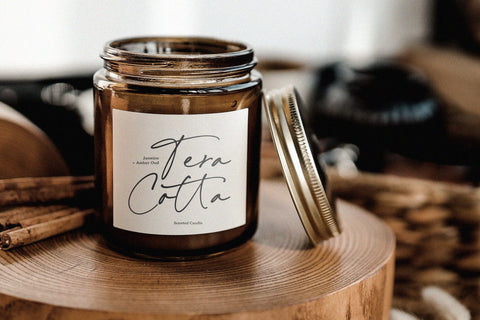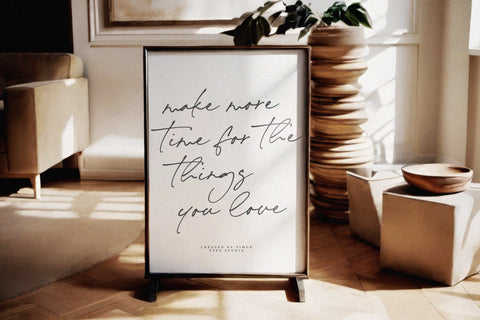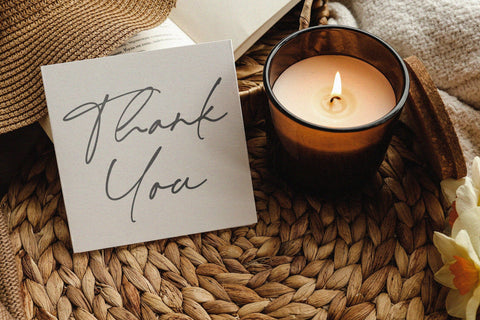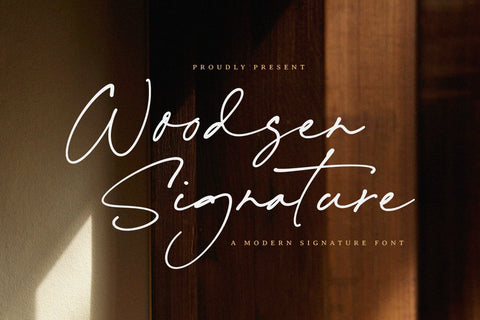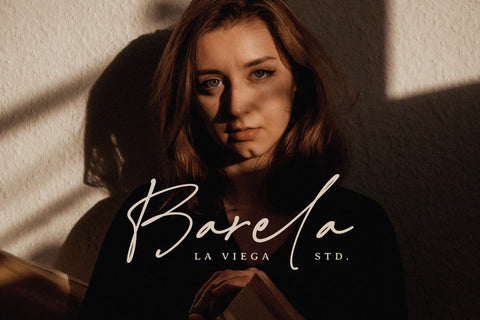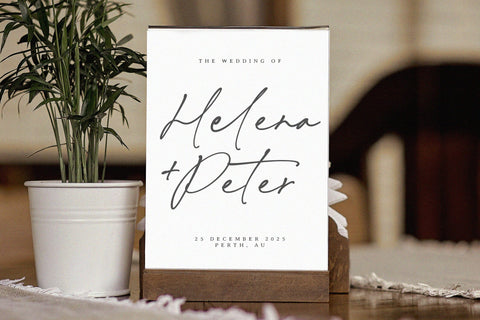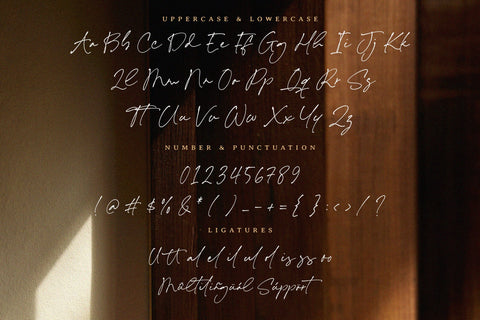
Woodsen Signature - Modern Signature Font
Woodsen Signature is a Modern Signature Font
This font is a contemporary script font that exudes elegance and sophistication. Its flowing, cursive style features a blend of smooth curves and sharp edges, making it perfect for branding, invitations, and projects. With a unique blend of modernity and timeless charm, Woodsen Signature adds a personal touch to any design, capturing attention while maintaining readability. Whether used in digital or print, it embodies a warm, inviting aesthetic ideal for conveying a sense of creativity and professionalism.
- Ligature
Woodsen Signature Font also supports multilingualism